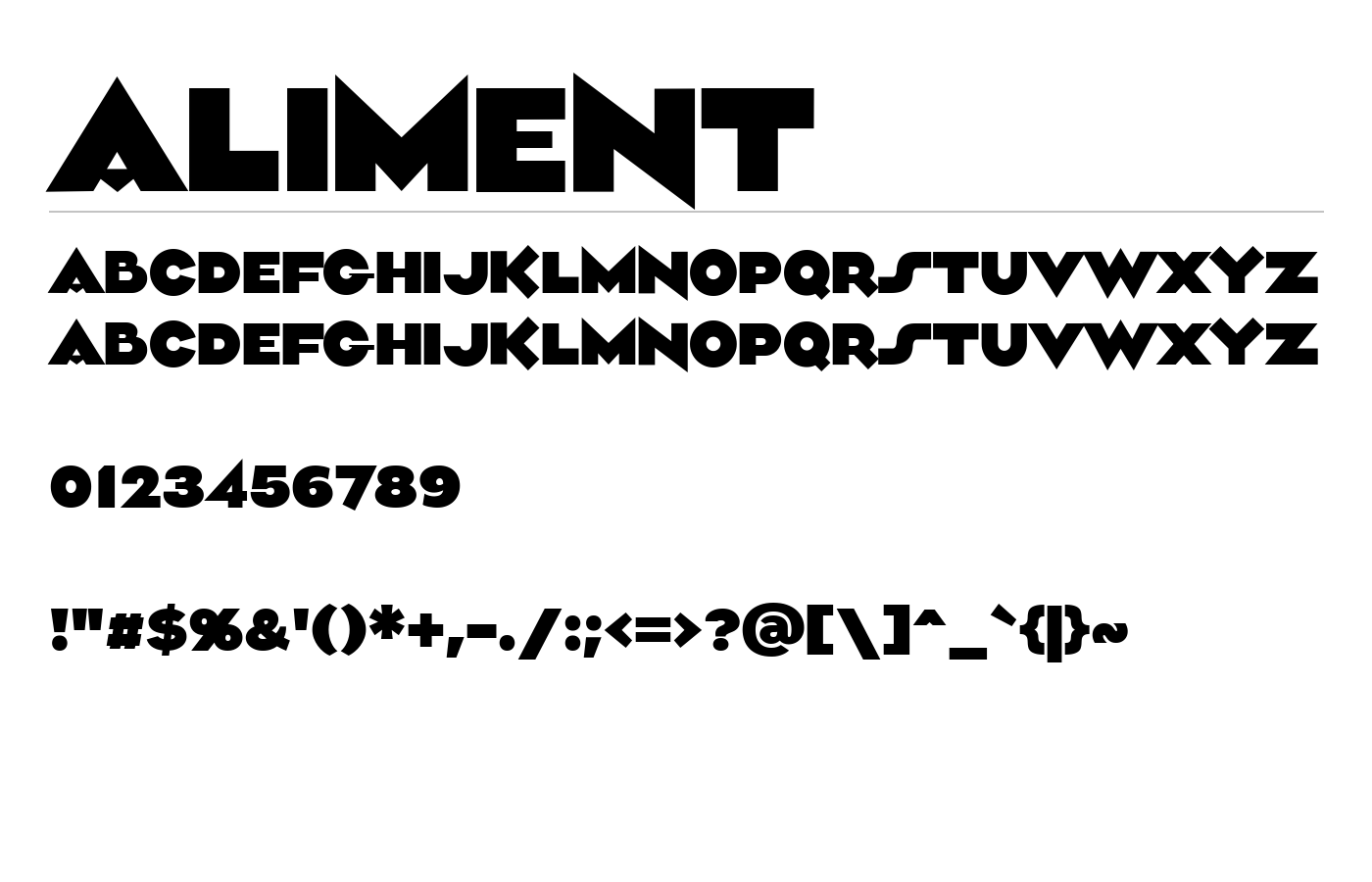
Aliment is a bold, geometric sans serif font with strong, sharp angles that give it a dynamic and modern feel. Its wide, solid letterforms with unique cut-out details create a distinctive and eye-catching style, perfect for striking headlines, logos, and branding that aims to stand out with confidence and creativity. This font works best in display settings where its powerful and adventurous personality can take center stage.
Aliment Font
About Aliment Font
| Font family | Aliment Font |